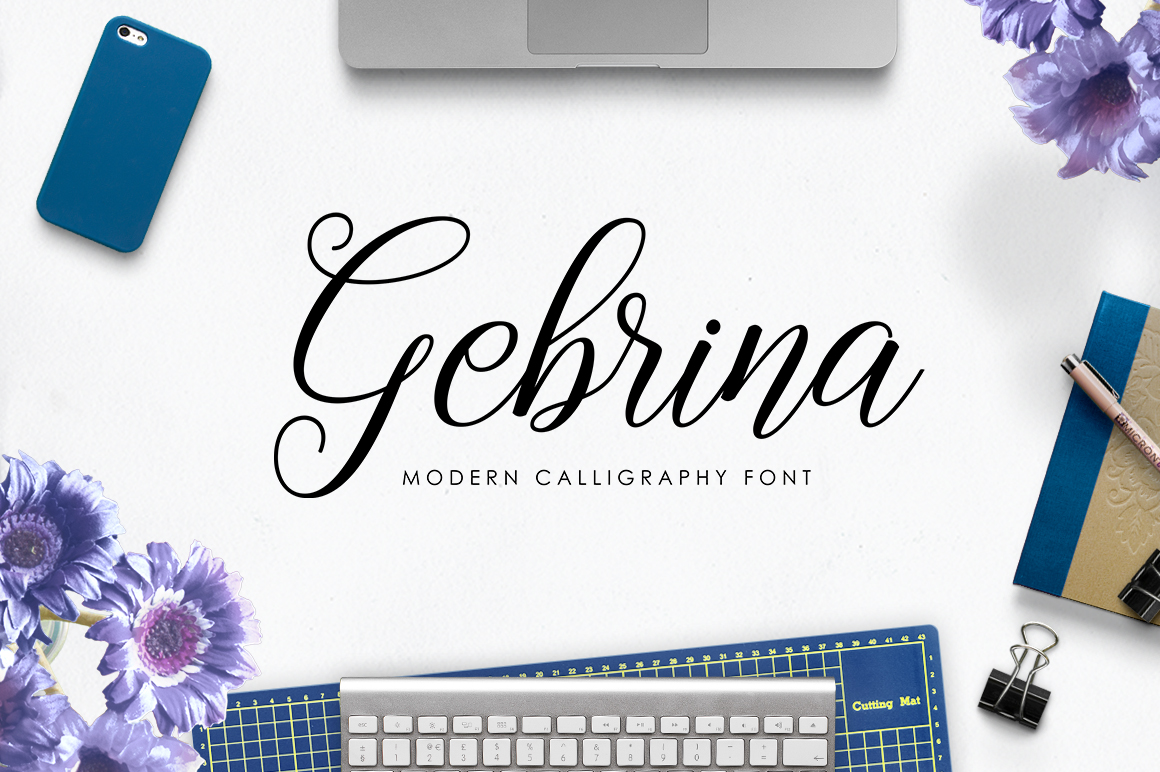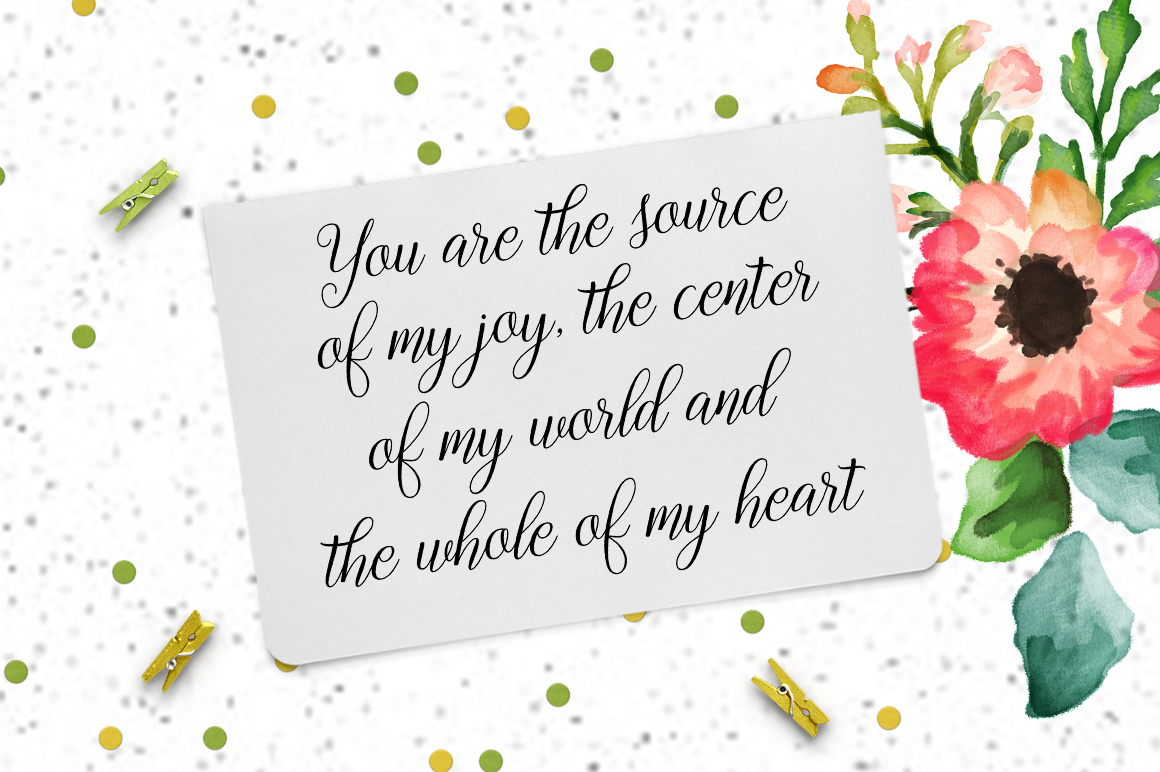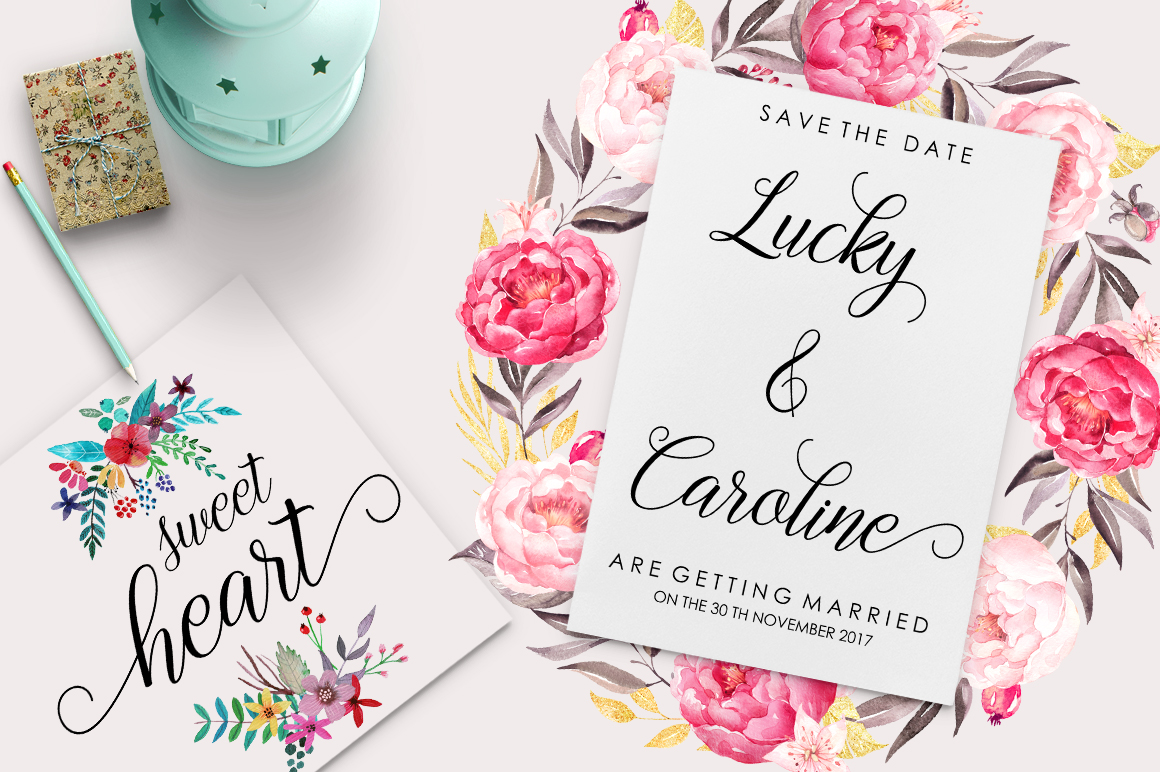
About Gebrina Script Font
Modern calligraphy at its finest, Gebrina is a standout script. Casual yet demanding, Gebrin is a great way to modernize your design and take it to the next level.
Idyllic and sensual, Gebrin can and should be used for a wide range of designs.